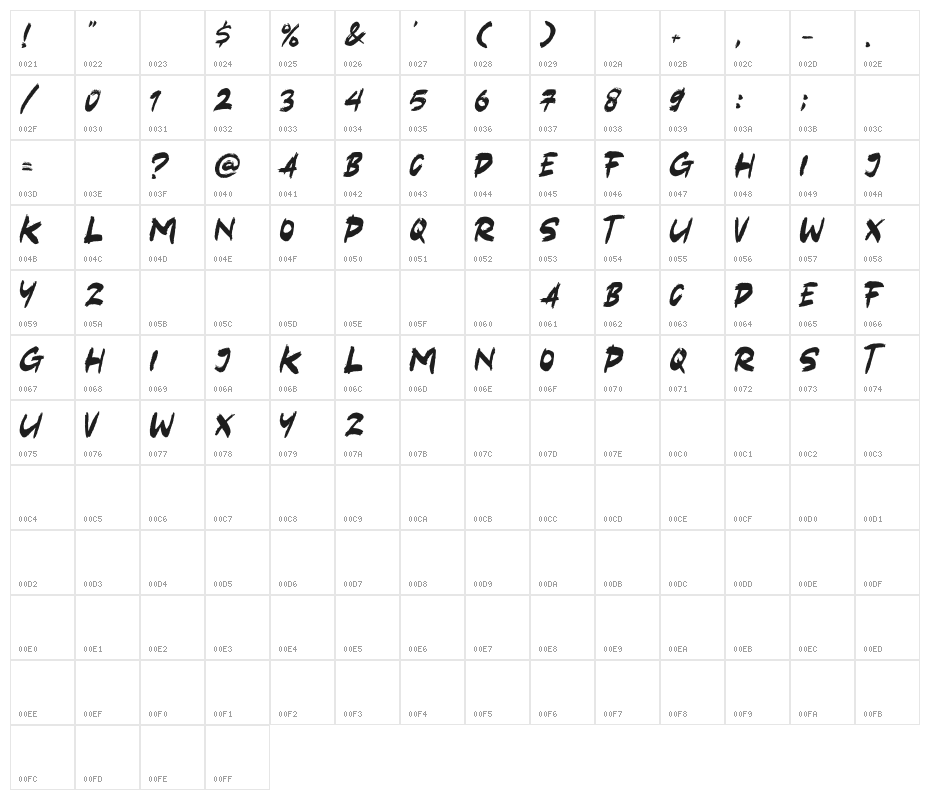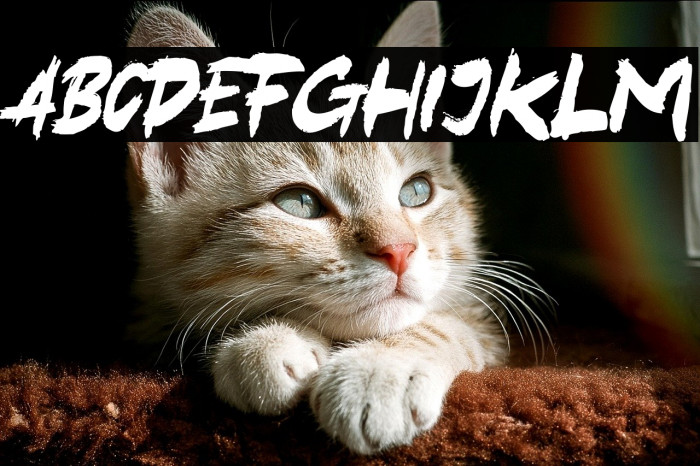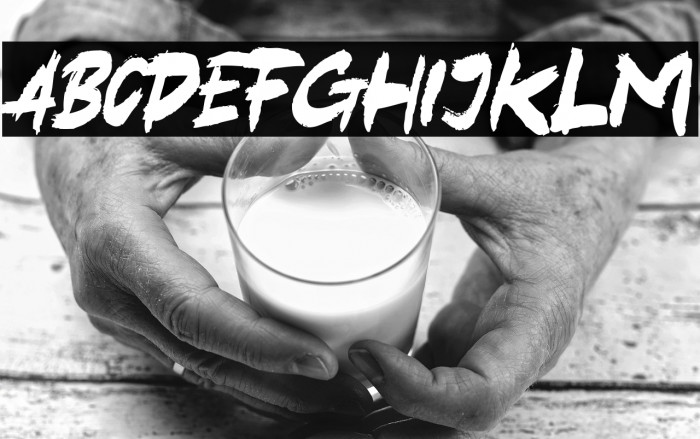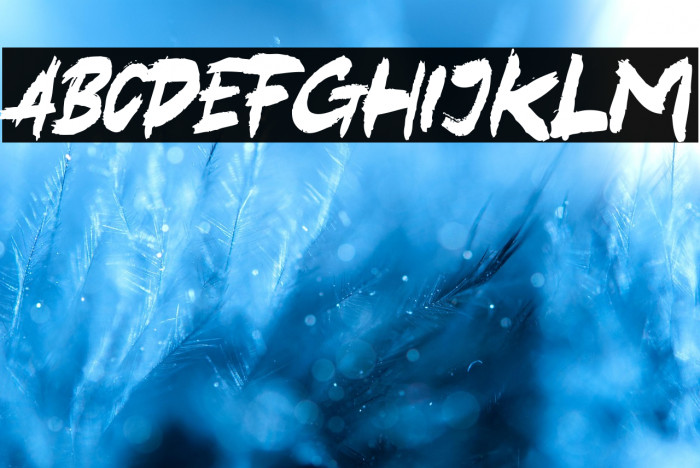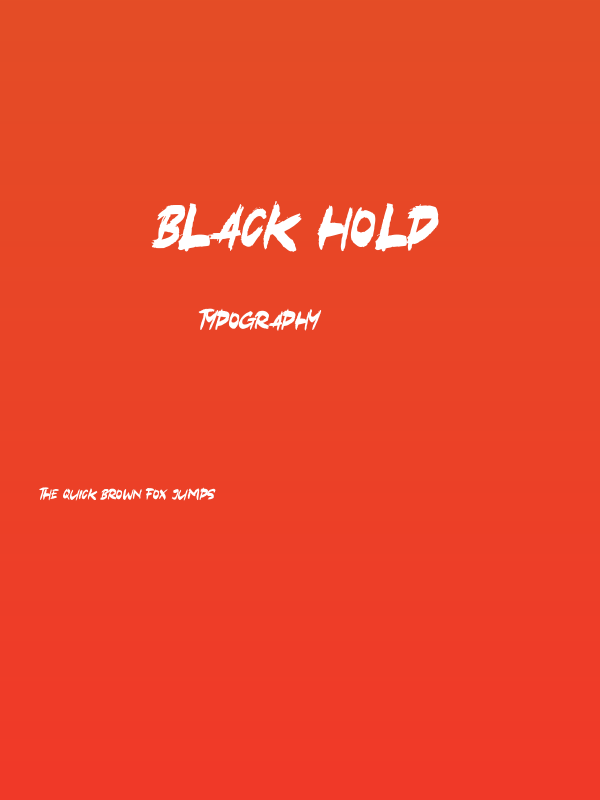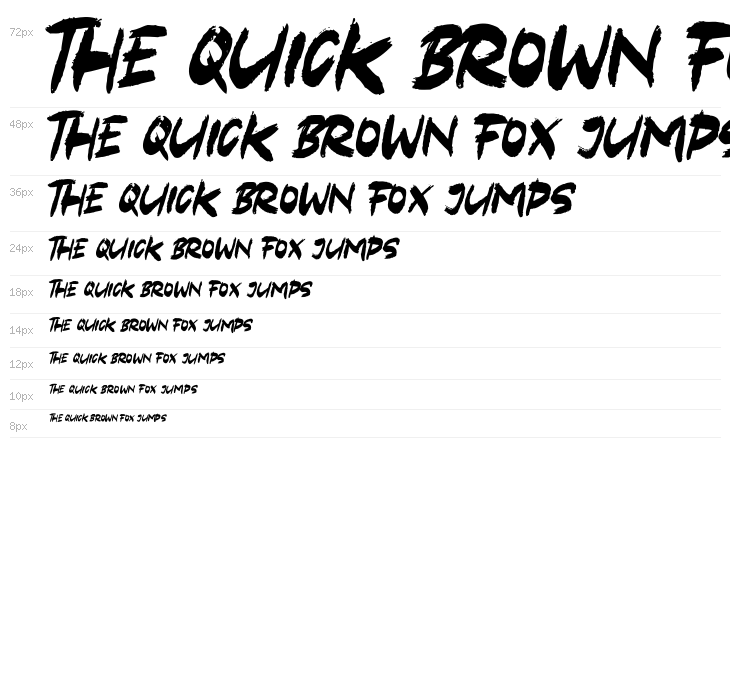
Black Hold Font
Black Hold Description
This font features a bold and dynamic brush script style, characterized by its thick, expressive strokes and energetic appearance. The letters are crafted with a rough, textured finish that gives them a hand-painted look, adding a sense of movement and spontaneity. The uppercase and lowercase characters maintain a consistent style, with slightly exaggerated curves and angles that enhance the font's dramatic flair. The numerals and special characters are equally bold, ensuring a cohesive look across all text elements. This font's unique style makes it stand out, perfect for projects that require a strong visual impact.